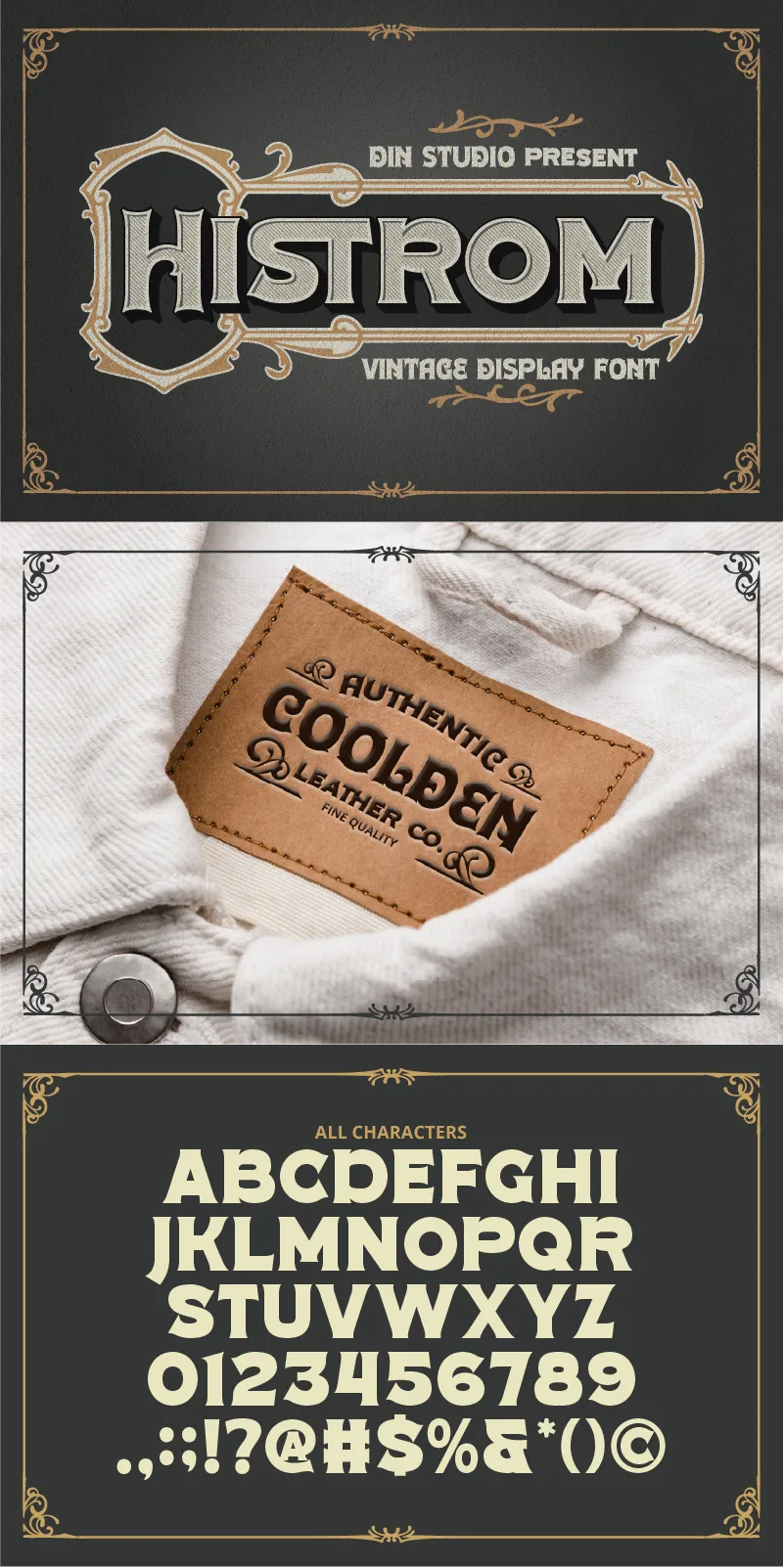
Histrom Font
About Histrom
Introducing Histrom, a bold and striking display font that captures the essence of vintage style with a modern edge. Crafted in uppercases with an ultra-thick weight, Histrom boasts rounded letterforms that create a strong yet approachable look. Its consistent letter design ensures perfect readability, while the available extrude engrave and inline versions add depth and texture, giving your designs a dynamic, three-dimensional feel. This font also gives ornament sets as extra. In addition, enjoy the features here.
Histrom fits in headlines, logos, posters, branding materials, packaging, print media, editorial layouts, and many more designs. Find out more ways to use this font by taking a look at the font preview.